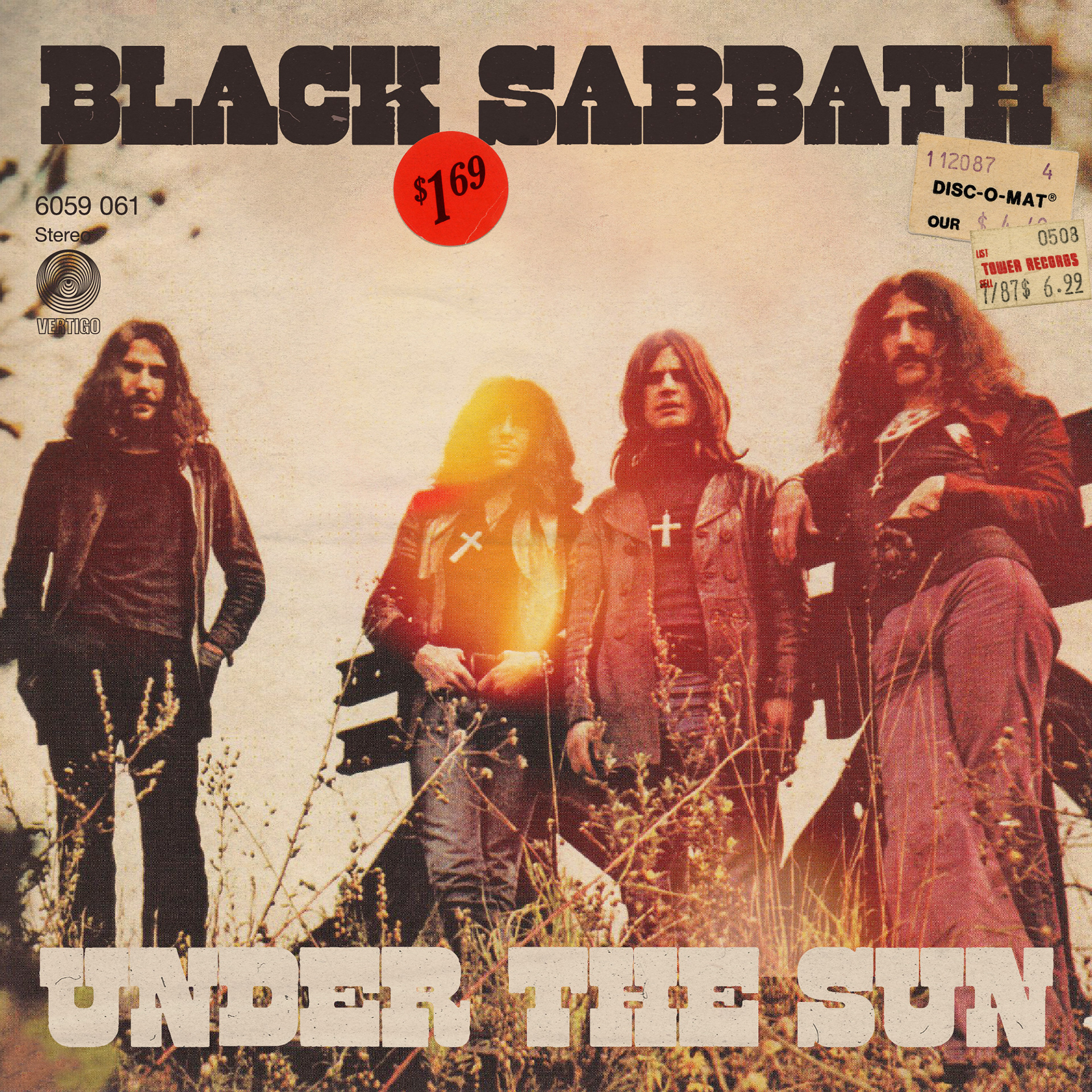
Amácio Mazzaropi was born in São Paulo 110 years ago. The artist starred in more than 30 films and became known throughout the country mainly for his character Jeca Tatu, based on a creation by Monteiro Lobato, in the film of the same name released in 1959.
The Mazzaropi font is a simple typographic tribute to the one who represented countryside Brazil so well through an approach that is both comic and critical. Based on some principles of appropriation of rustic "caipira" imagination, its references are inspired by vernacular letters and the deconstruction of a lost typeface from the photocomposition era (1960s/70s), Umbra 27 (Karl-Heinz Domning, 1972 for Berthold Types), also part of an aesthetic responsible for the construction of the western/hillbilly imaginary.
It is a display font made for large sizes, titles and applications where the eccentric design and wood type inspiration stand out. Alternative characters and Latin diacritics are some of its extras.